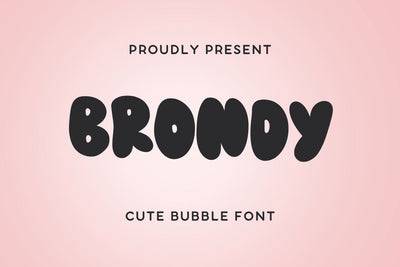
Brondy - Cute Bubble Font
Hi, Introducing Brondy - Cute Bubble Font
Cute Bubble Font with a cute, fun style. This font is cool for greeting cards, quotes, mugs, t shirts, pillows, greeting cards etc.